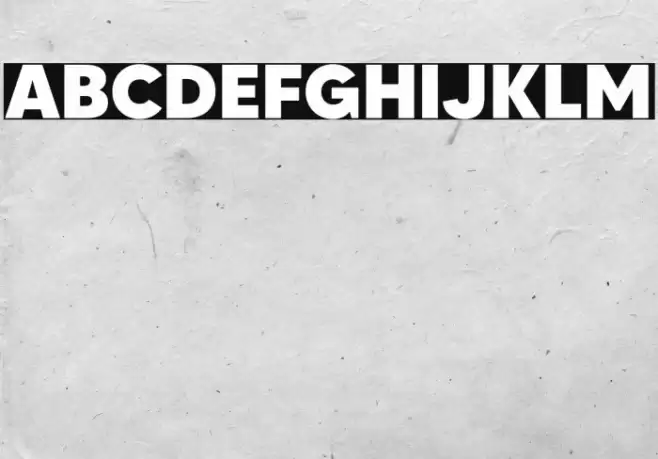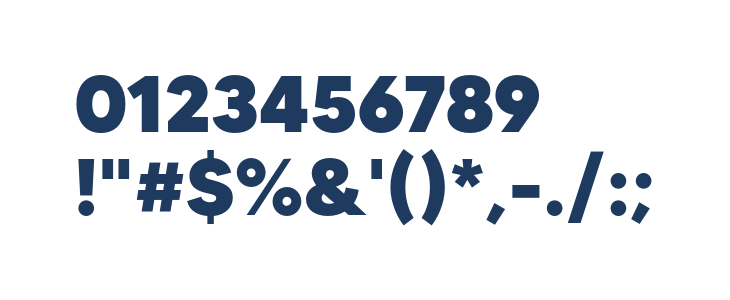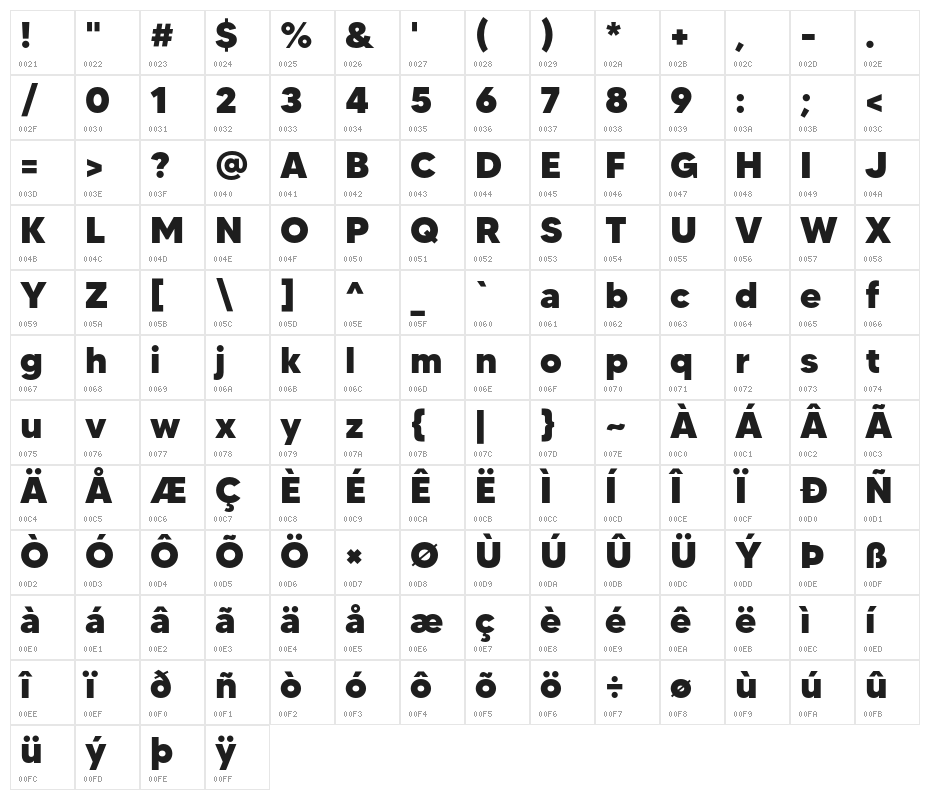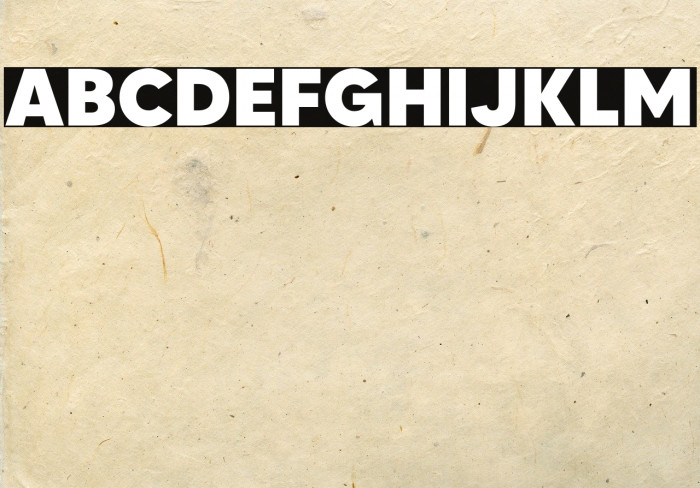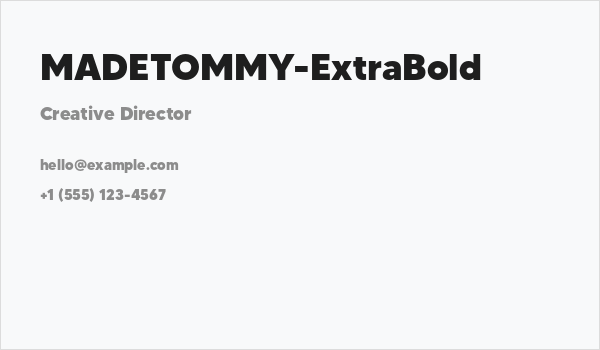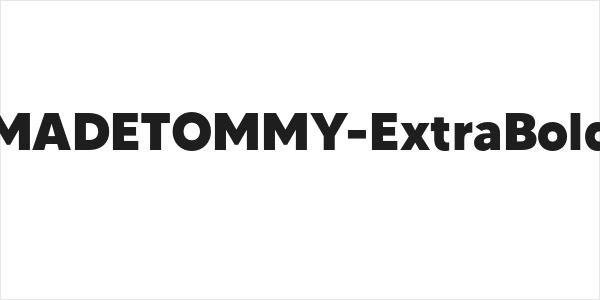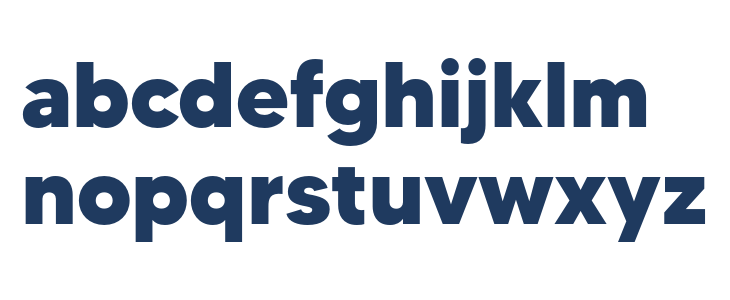
MADETOMMY-ExtraBold Font
MADETOMMY-ExtraBold Description
This typeface features a bold and robust design, characterized by thick strokes and a strong presence. The uppercase and lowercase letters are crafted with a uniform thickness, providing a sense of stability and modernity. The numerals are equally bold, ensuring clarity and impact. Special characters are designed to match the overall weight and style, making them suitable for various applications. The font's clean lines and lack of serifs contribute to its contemporary aesthetic, making it ideal for attention-grabbing headlines and branding materials.
A bold, modern typeface with thick strokes and a strong presence from Uncategorized fonts.
- Proposed Projects: Ideal for branding, headlines, posters, and advertising materials that require a strong visual impact.